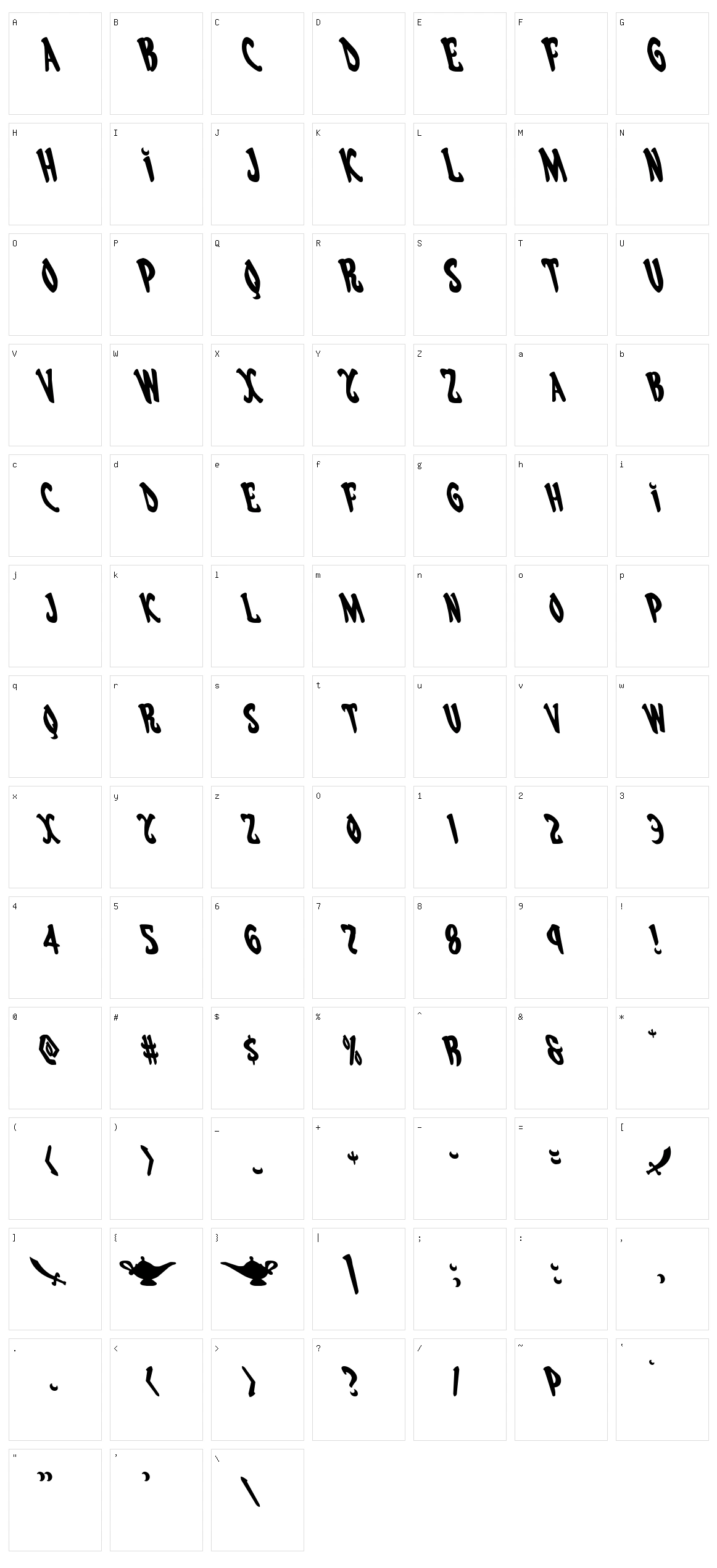
The free font Eskindar is carefully designed by Iconian Fonts, showcasing a thoughtful balance of creativity and usability and falls under the Arabic font style. When you download the ZIP file, it contains only 411.72 KB of font files, making it lightweight and quick to download. Please review the license details below to understand permitted usage and distribution rights. If license information is not available, we recommend using this font for personal projects only or contacting the author directly for commercial usage permissions.
This font comes with the following 11 versions: Regular, Italic, Condensed, Condensed Italic, Expanded, Expanded Italic, 3D, 3D Italic, Rotated, Rotalic and Leftalic.